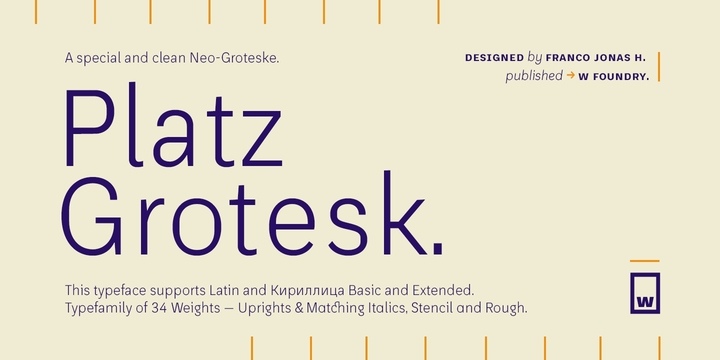
Platz Grotesk Font
Platz Grotesk Font is perfect for various design applications including contemporary branding systems, editorial magazine layouts, architectural presentations, modern corporate identities, minimalist packaging designs, cultural institution materials, design studio portfolios, luxury fashion brands, art gallery exhibitions, and progressive website interfaces. This refined typeface excels in projects requiring sophisticated simplicity and timeless modernist appeal that resonates with design-conscious audiences.
What makes Platz Grotesk Font so exciting is its perfect embodiment of neo-grotesk design principles with contemporary refinements that elevate it above standard sans-serif options. The font features meticulously balanced proportions, subtle character quirks, and optimized spacing that create exceptional readability while maintaining distinctive personality. Its clean geometric foundation combined with humanist touches makes it ideal for brands seeking sophisticated typography that communicates both professionalism and creative sensibility without overwhelming the message.
The Platz Grotesk Font family includes comprehensive weight options from thin to black, along with matching italic styles that provide complete typographic flexibility for complex design systems. Each weight maintains consistent character and visual harmony while offering clear hierarchy options for editorial and branding applications. The family also features extended character sets, professional ligatures, and carefully designed numerals that ensure optimal performance in both text and display settings.
Whether you're creating editorial publications, contemporary branding, or cultural communications, Platz Grotesk Font Free Download delivers the typographic sophistication that discerning designers demand. This typeface transforms ordinary text into elegant communications that reflect refined taste and attention to detail. The font's versatile nature makes it particularly effective for creative agencies, architectural firms, and cultural organizations that value both functionality and aesthetic excellence.
Platz Grotesk Font distinguishes itself through its masterful balance of modernist principles and contemporary usability, creating typography that feels both timeless and current. Its carefully refined details and optimized spacing ensure exceptional performance across all media, while its subtle personality adds character without compromising neutrality. From comprehensive brand systems to detailed editorial work, this font provides designers with tools to create sophisticated communications that demonstrate typographic expertise and design intelligence.